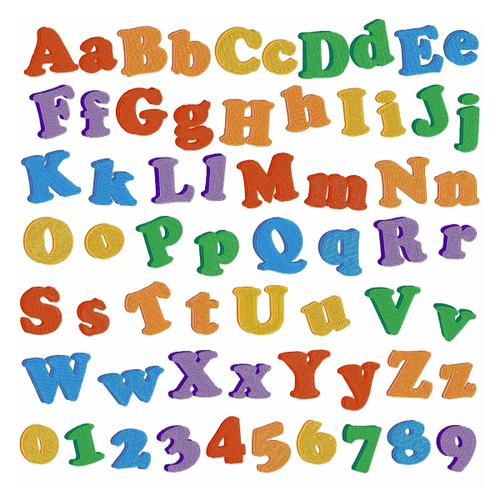
Embroidery Patterns is happy to present Fridge Magnet Font machine embroidery font which has Playful decorative machine embroidery font with rounded, textured letters, perfect for vibrant fridge magnets and crafts. Compatible with multiple formats including PES, DST, and others, ensuring versatility for your projects. included. If you would like to view more embroidery fonts and alphabets please search our embroidery fonts page.